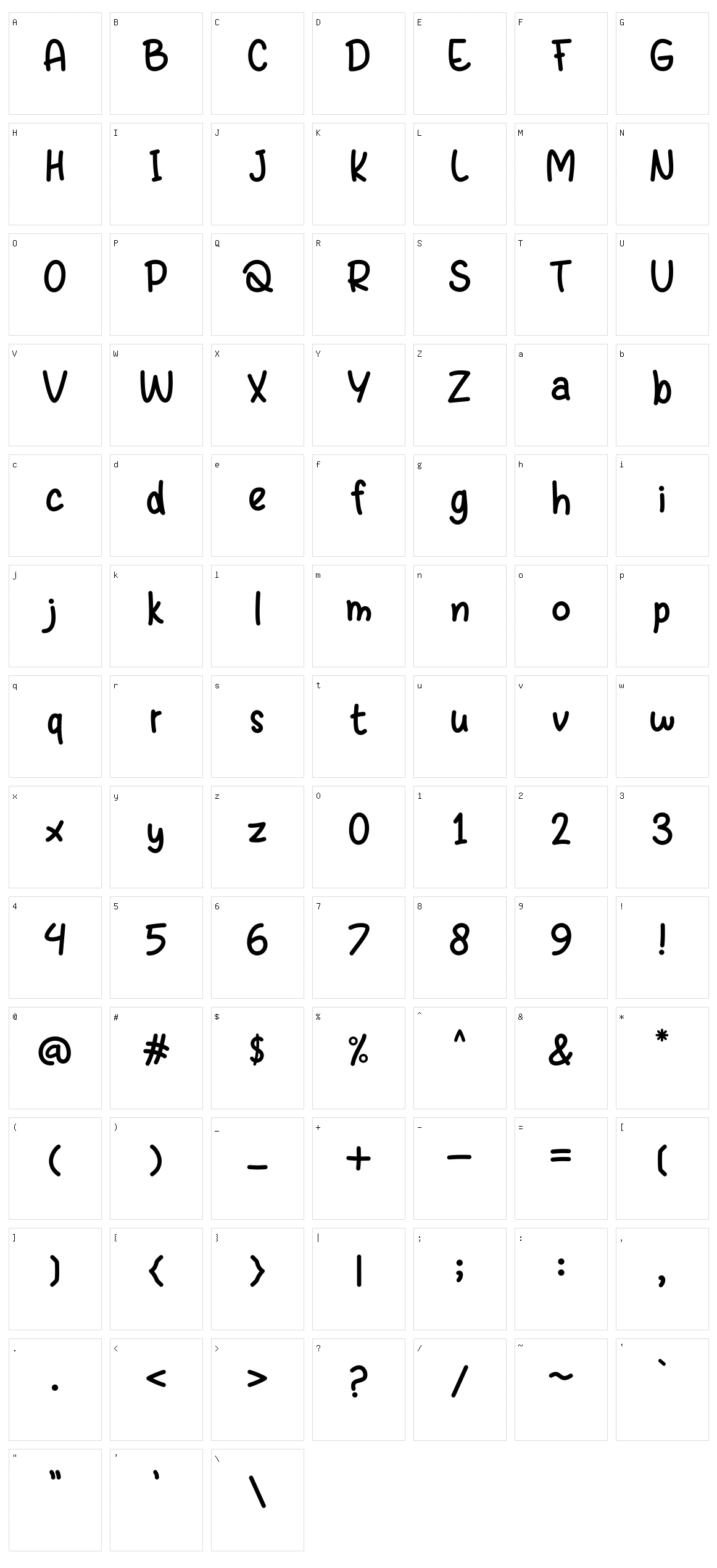
The free font KidsBoys is carefully designed by Sahl Studio, showcasing a thoughtful balance of creativity and usability and falls under the Cartoon font style. When you download the ZIP file, it contains only 21.43 KB of font files, making it lightweight and quick to download. Please review the license details below to understand permitted usage and distribution rights. If license information is not available, we recommend using this font for personal projects only or contacting the author directly for commercial usage permissions.